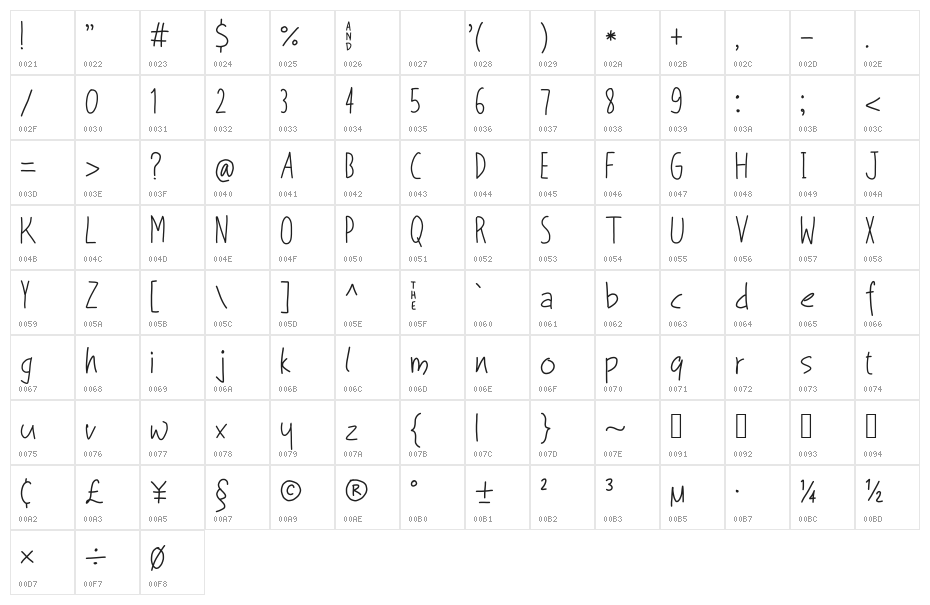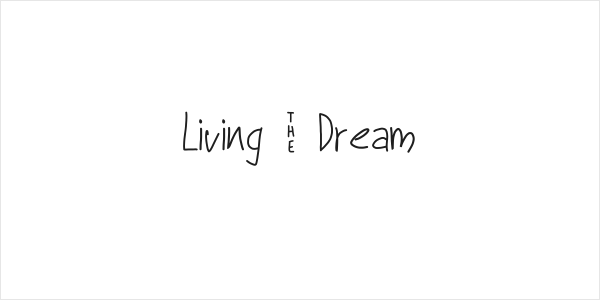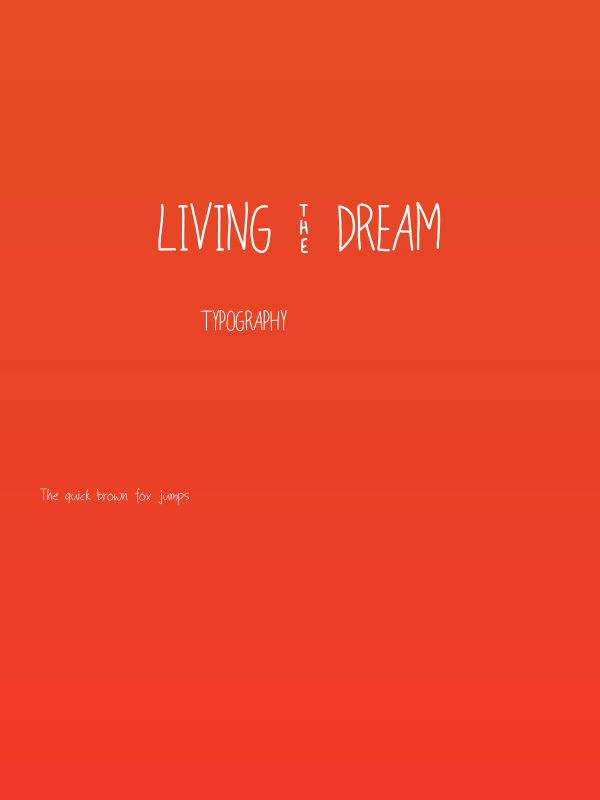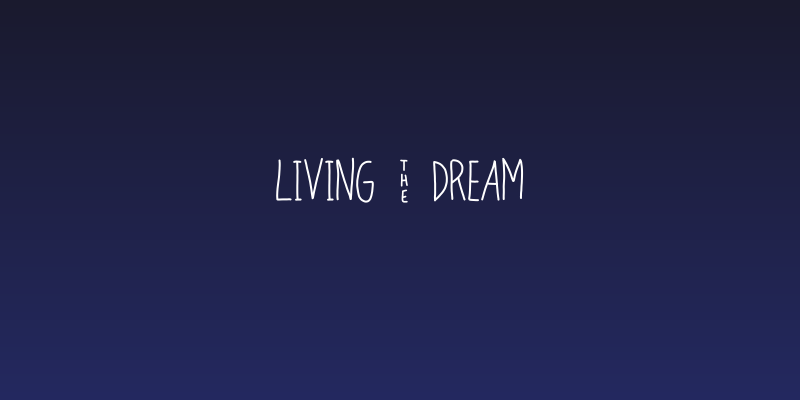
Living _ Dream Font
Living _ Dream Description
This font features a playful and informal handwritten style, characterized by its irregular strokes and casual appearance. The uppercase and lowercase letters maintain a consistent flow, with slightly varying heights and widths that add to its charm. The numerals and special characters are crafted with the same whimsical touch, making them blend seamlessly with the alphabet. The overall design is approachable and friendly, suitable for projects that require a personal or creative touch.
| Proposed Projects | Ideal for greeting cards, children's books, personal blogs, and creative branding projects. |